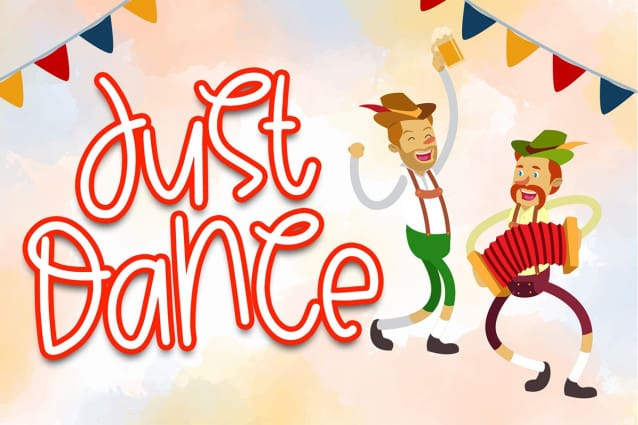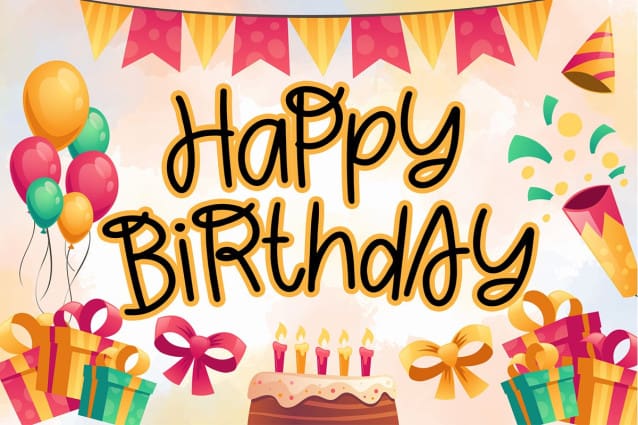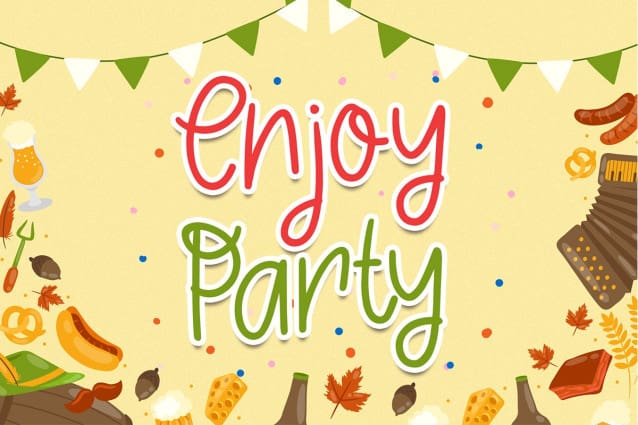
Friday Party Font
Friday Party a quirky handwritten font. Get this unique, quirky festive font style ! Make your design more fun and gorgeous, with unlimited style combination!